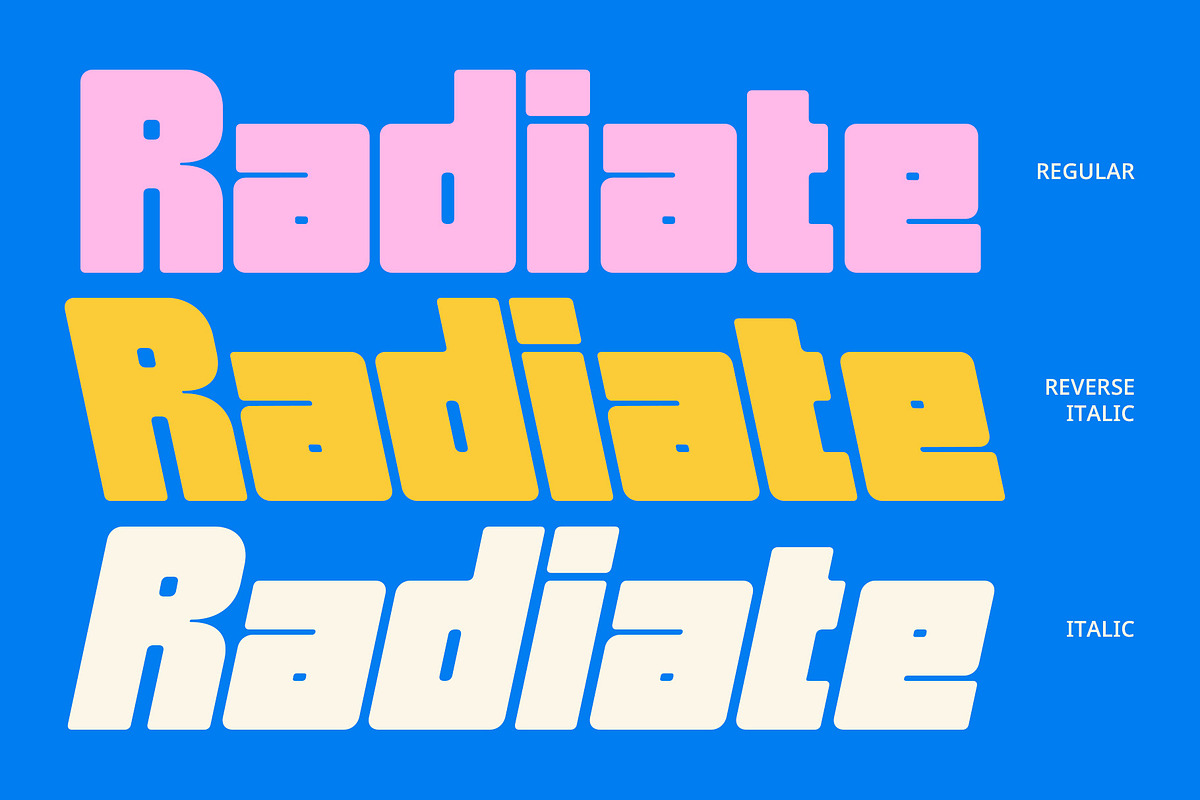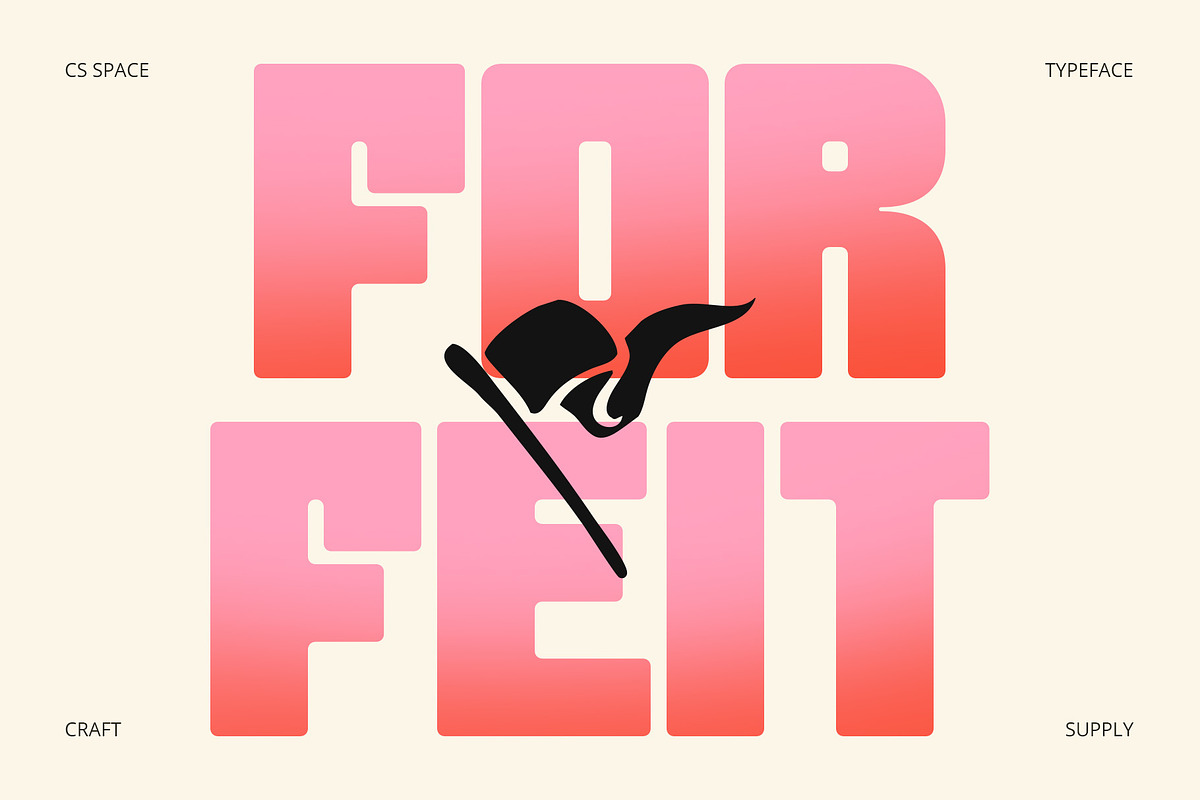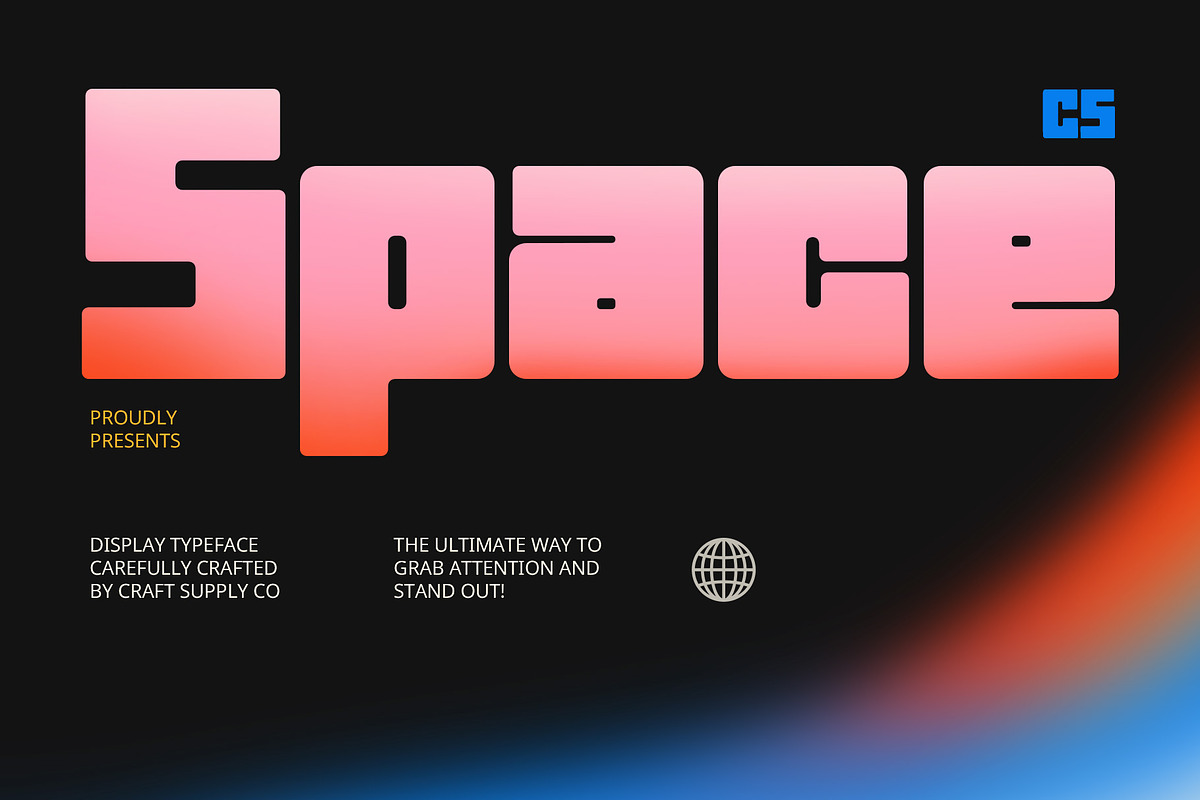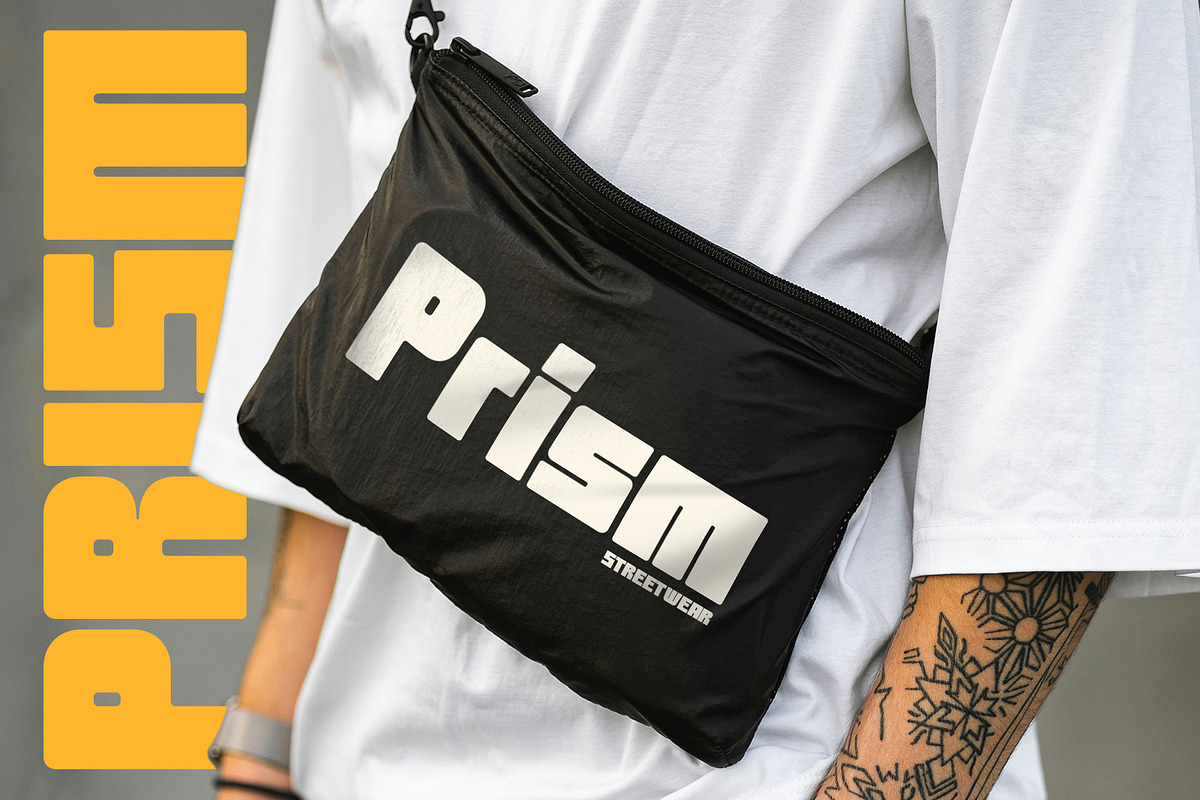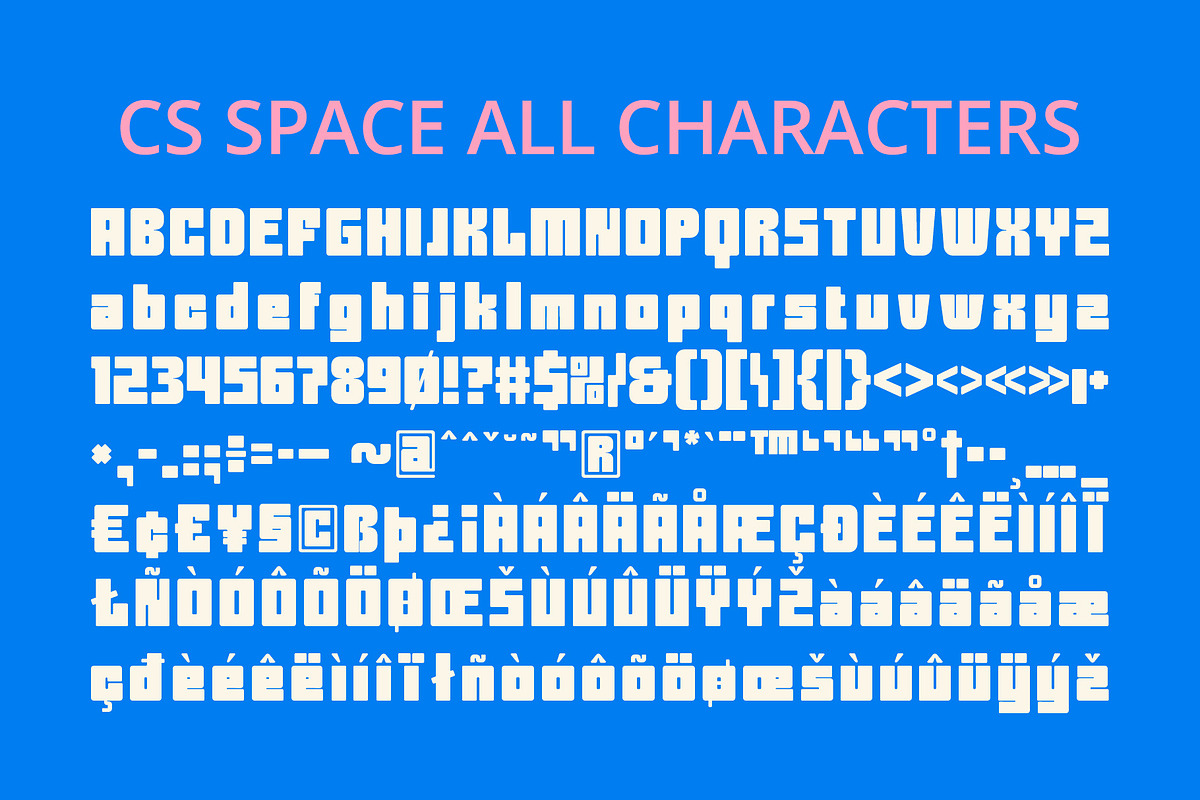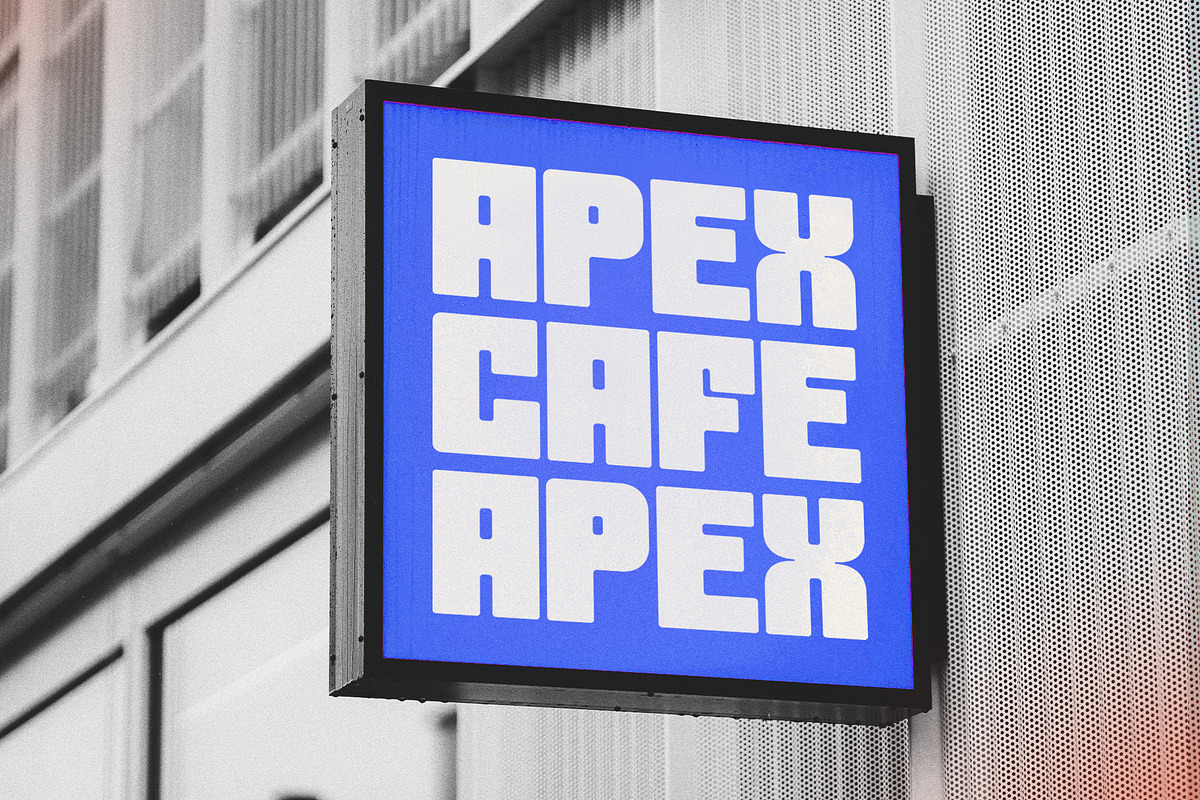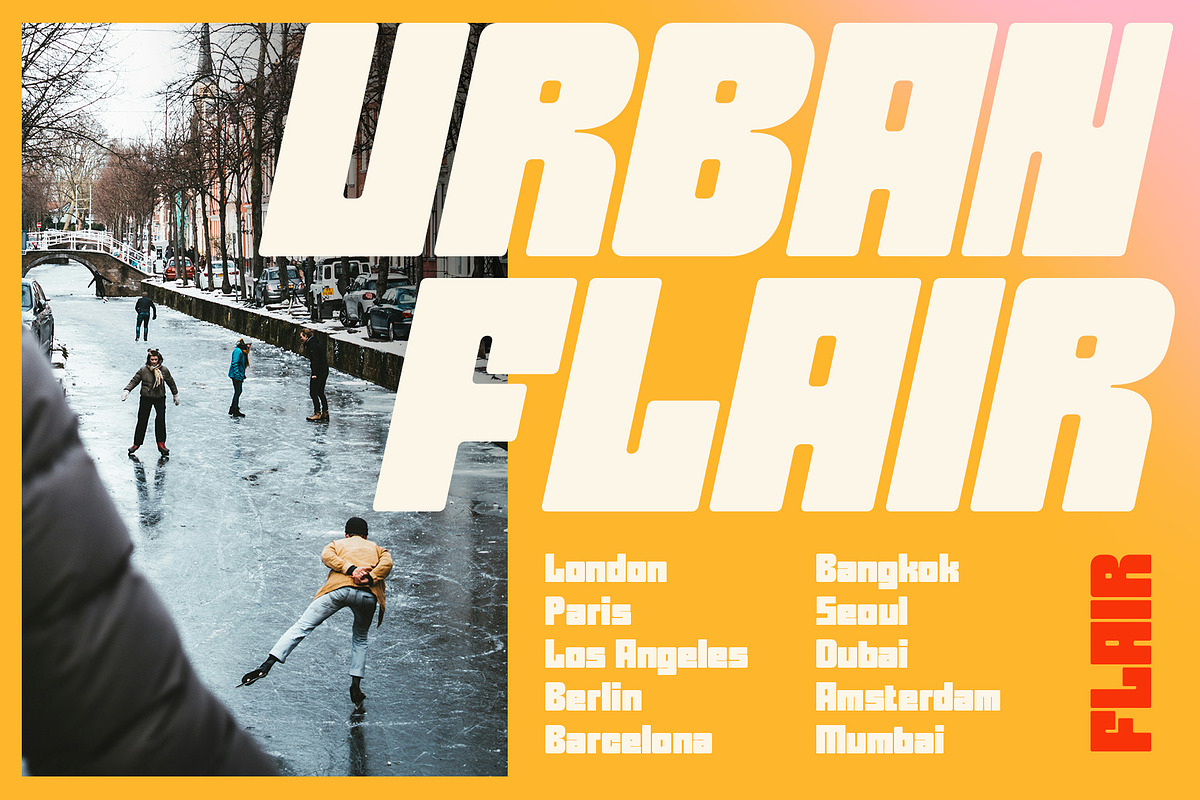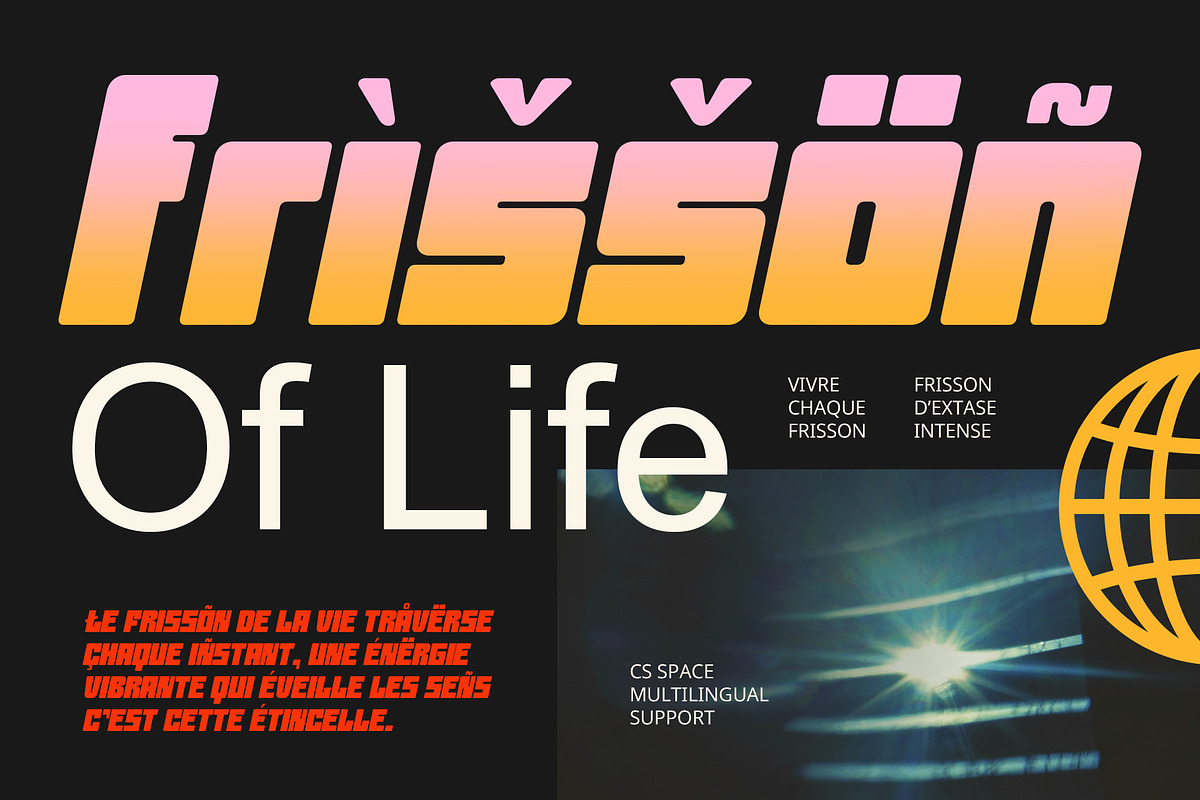
CS Space – Bold Font
CS Space – Bold Modern Sans-Serif Font
Strength, Simplicity, and Impact CS Space is a modern sans-serif font with a bold weight, designed to make a powerful statement through its thick, clear lines and clean, serif-free shapes. The font exudes confidence and clarity, offering a solid, assertive look that commands attention. Its striking design is perfect for projects that require a strong, contemporary presence, combining strength with a sleek, minimalist aesthetic.
Clear, Strong, and Readable With its bold weight and geometric simplicity, CS Space ensures legibility and readability, even at smaller sizes or from a distance. The absence of serifs enhances its clean and modern appearance, making it ideal for both print and digital designs. Its well-balanced proportions and bold lines create a visual impact that stands out without overwhelming, providing a perfect blend of strength and sophistication.
Versatile for Various Design Applications CS Space is versatile and highly adaptable, making it the go-to font for a wide range of design projects. Whether for branding, advertising campaigns, product packaging, or event promotions, this font brings a contemporary, professional flair to any concept. Its ability to maintain a bold presence while offering a minimalist look makes it suitable for both corporate and creative designs, ensuring your message is delivered with impact and style.